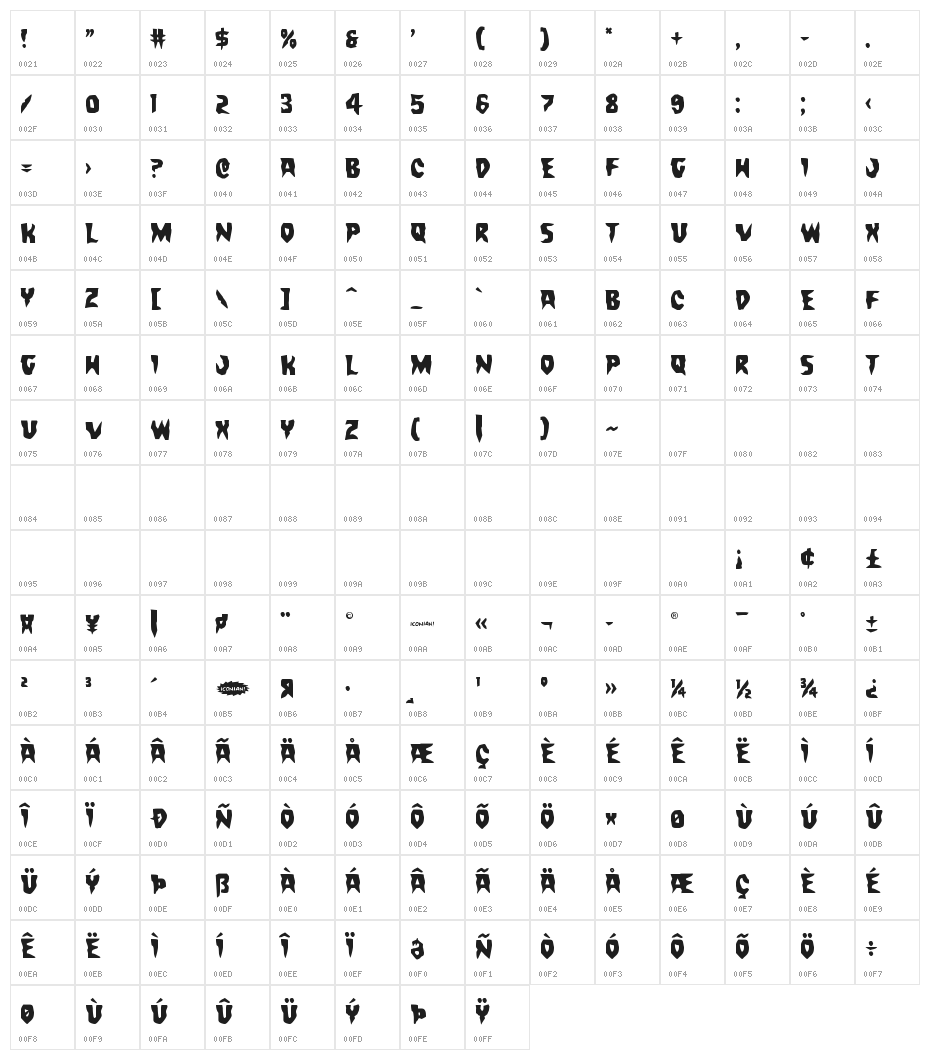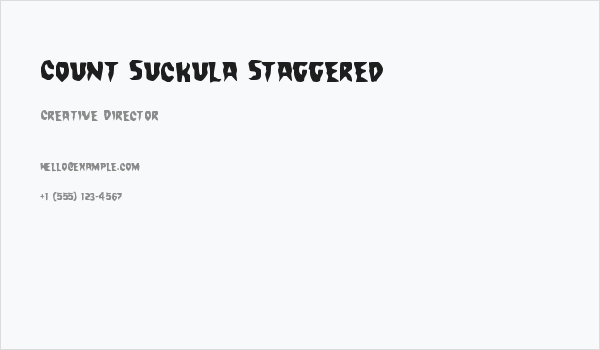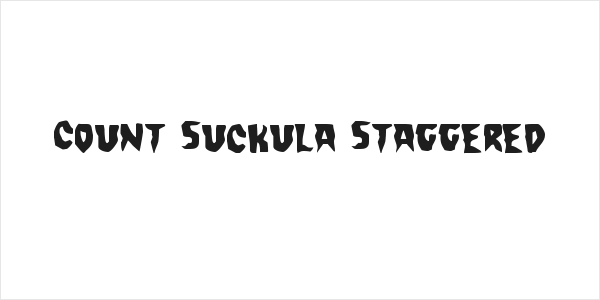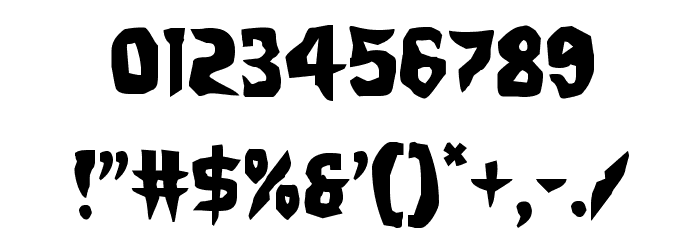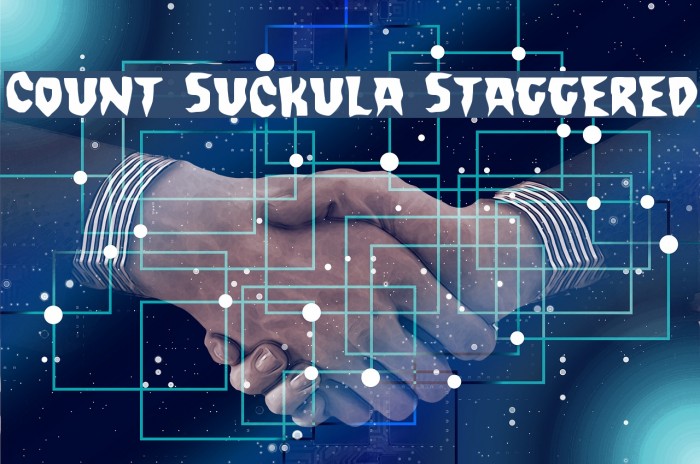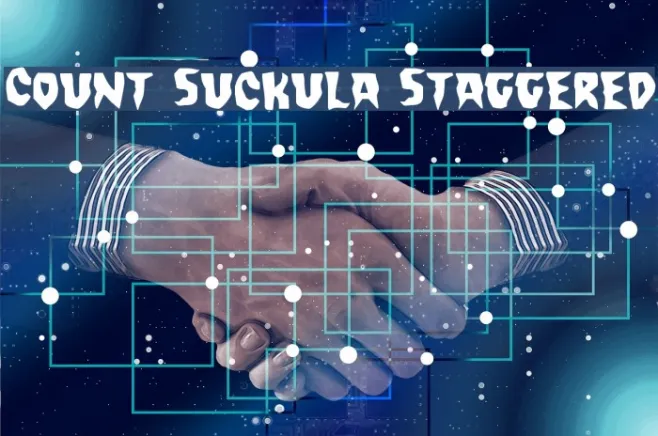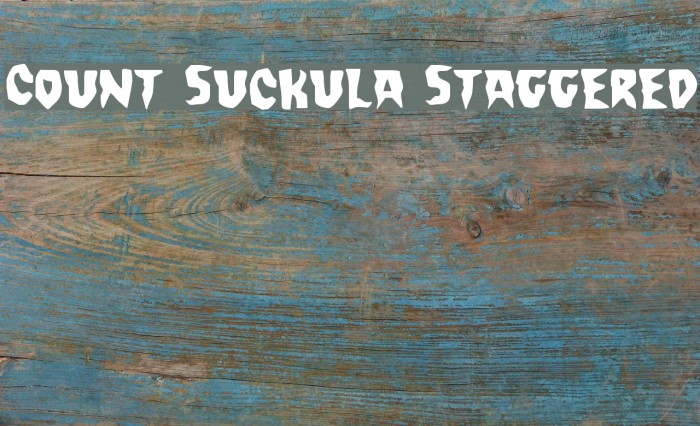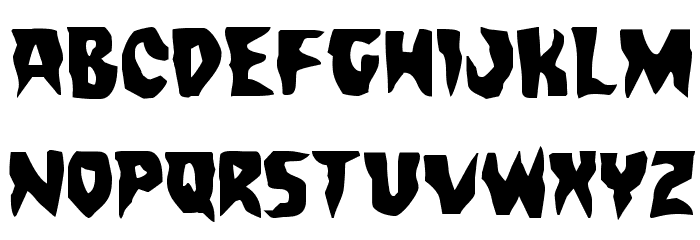
Count Suckula Staggered Font
Count Suckula Staggered Description
This font features a bold and jagged design, reminiscent of horror or Halloween themes. The characters have sharp, irregular edges, giving them a spooky and unsettling appearance. The uppercase and lowercase letters maintain a consistent style, with exaggerated serifs and angular cuts. The numbers and special characters follow the same aesthetic, ensuring a cohesive look across all glyphs. This font is perfect for creating eye-catching titles or graphics that require a dramatic and eerie touch.
| Proposed Projects | Ideal for Halloween posters, horror movie titles, themed party invitations, or any project requiring a dramatic, eerie aesthetic. |